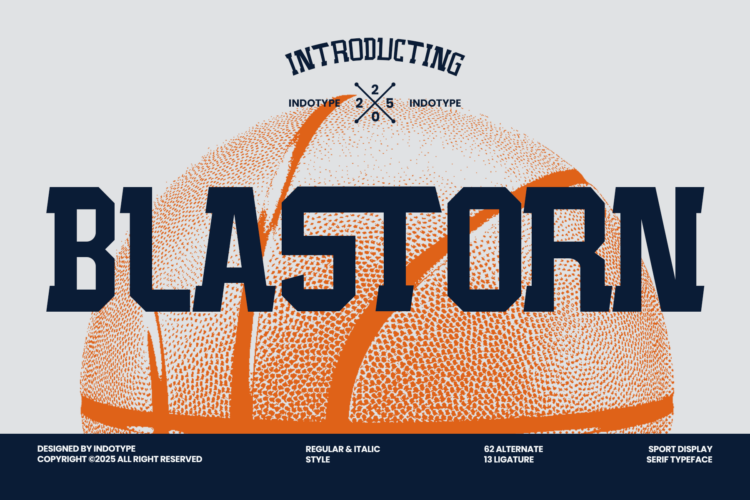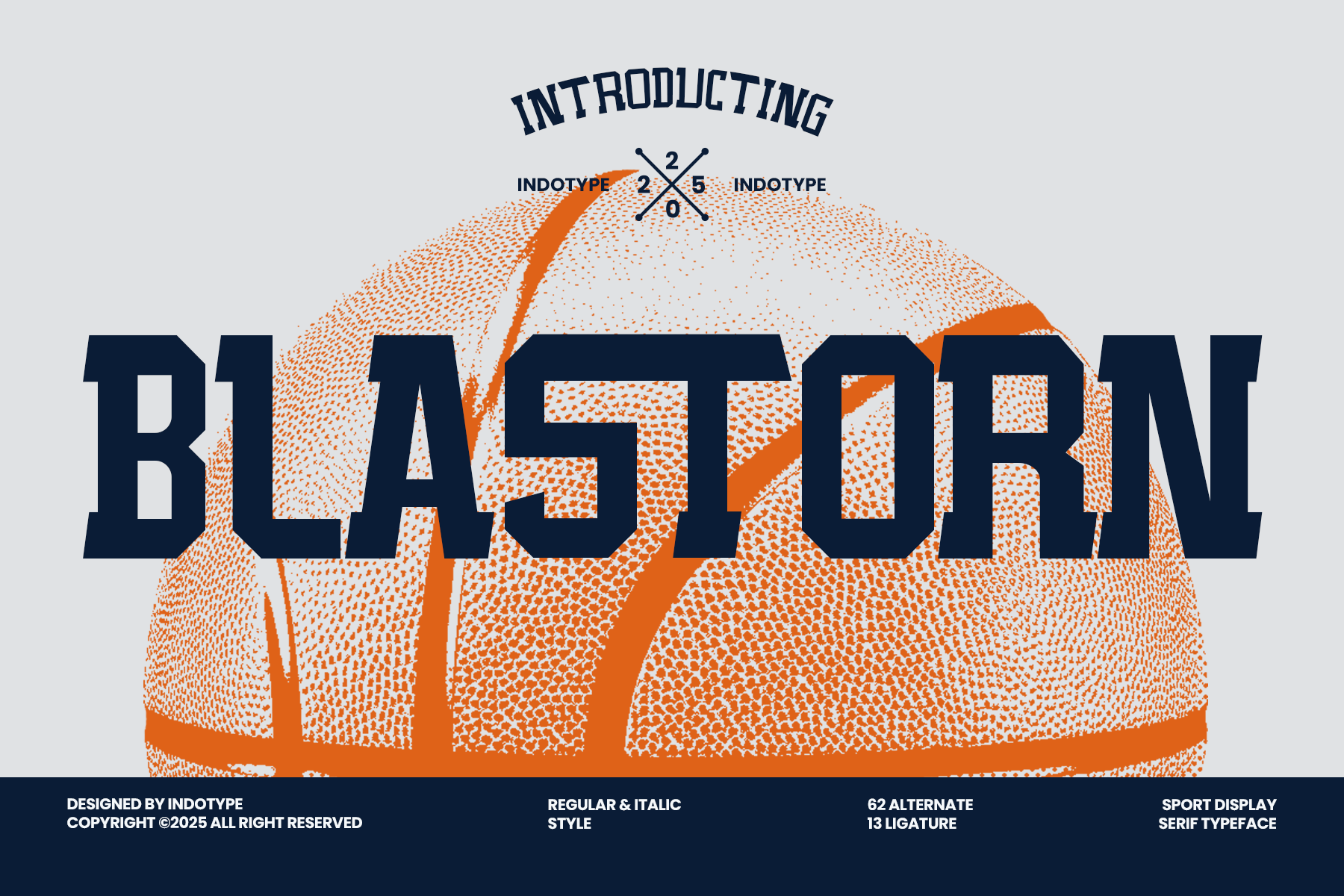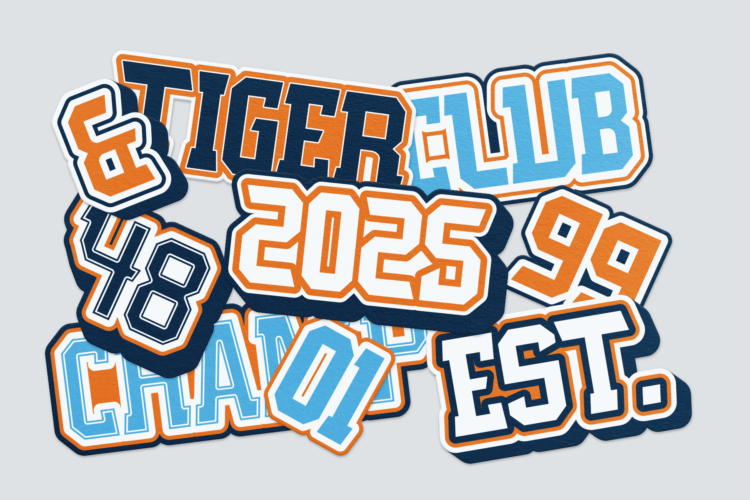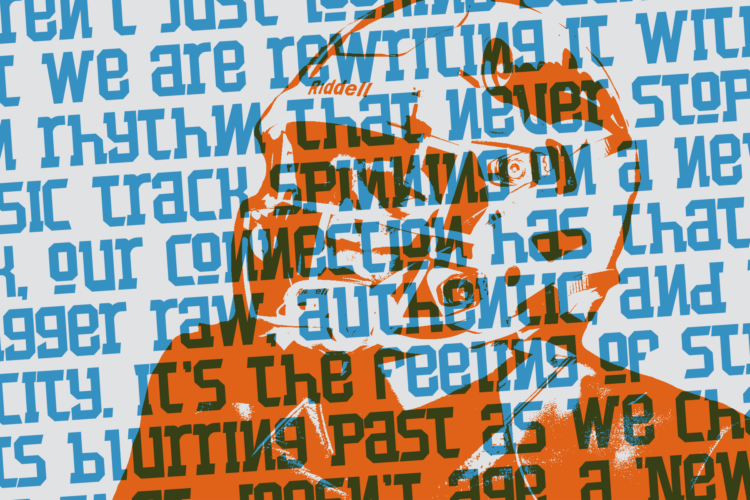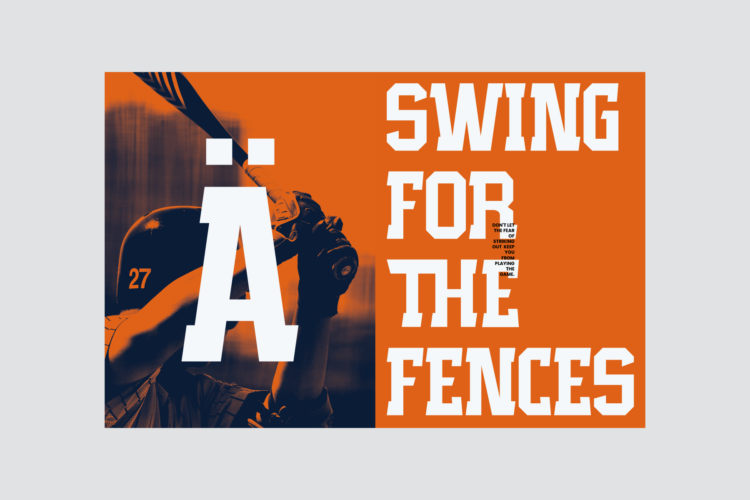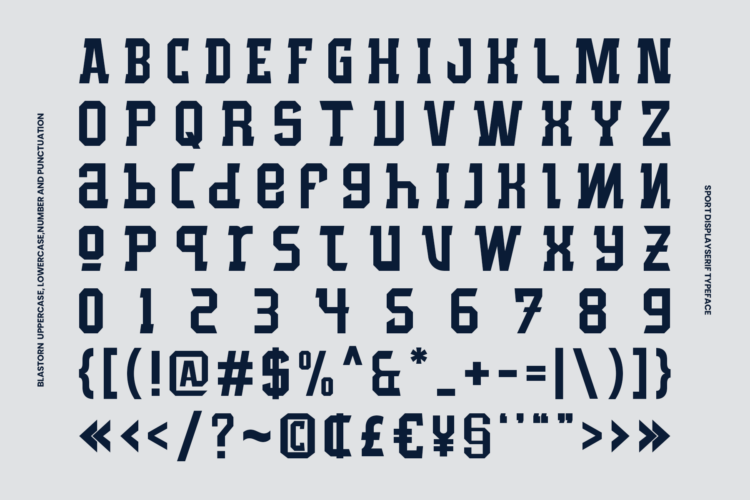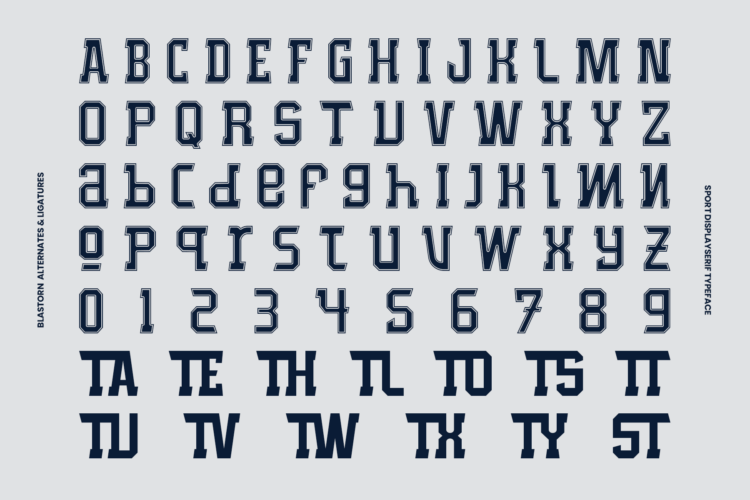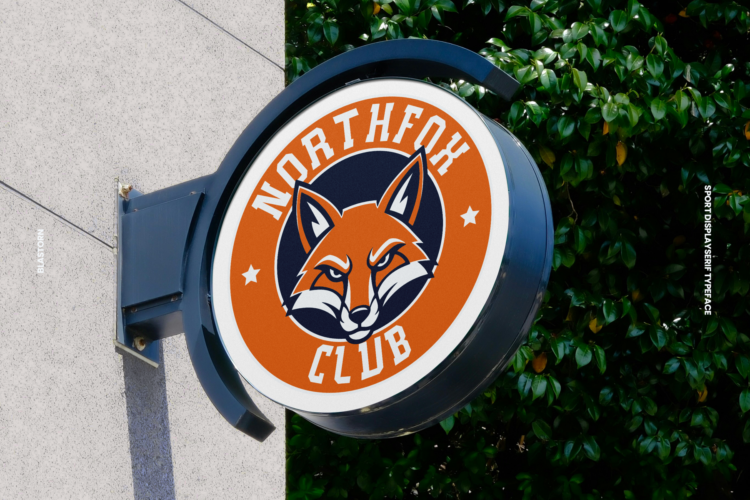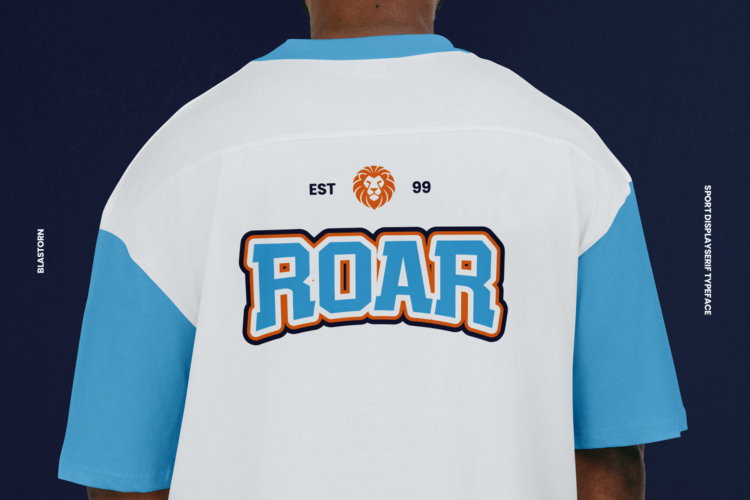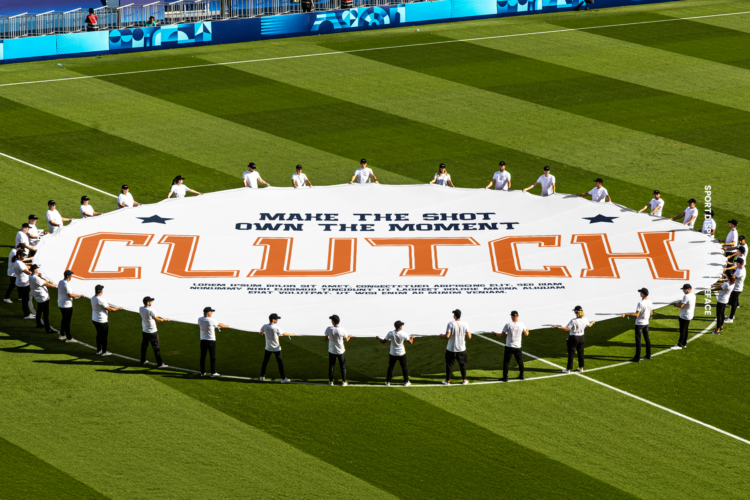
Sport-Display-Serif
Blastorn is a high-energy, dynamic display serif built for the fast-paced world of sports, fitness, and action-oriented branding. Its aggressive angles, sharp serifs, and muscular letterforms capture the essence of power, speed, and competition. This font doesn’t just speak—it shouts with bold confidence, making it perfect for designs that need to convey strength and motion. Loaded with 62 stylistic alternates and 13 ligatures, Blastorn offers incredible flexibility to craft unique logos, custom wordmarks, and impactful headlines that stand out. Available in both a solid Regular and a slanted, forward-thrusting Italic style, it provides the versatility needed for team identities, athletic apparel, event promotions, and any project that demands a winning visual impact.
• Classification: Serif, Display, Slab Serif, Sport.
• Attributes: Energetic, Bold, Aggressive, Dynamic, Powerful, Masculine, Competitive.
• Standard Character A-Z, a-z, 0-9, Punctuation & symbols
• Regular and Italic Style
• Multilingual Support accents and diacritics
• Including Alternate & Ligature Glyphs
Blastorn – Sport Display Serif